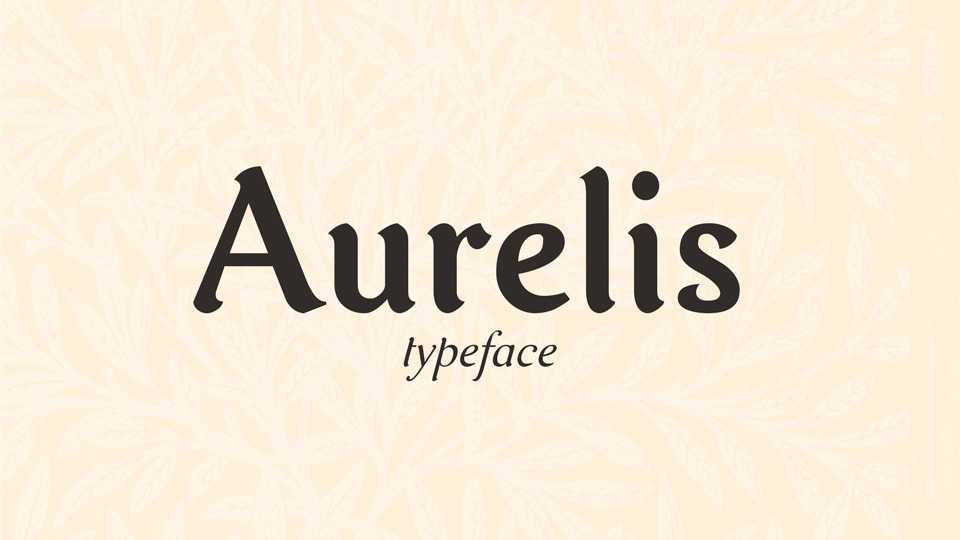
Aurelis Font Family › Fontesk
Download Aurelis typeface, a beautiful sans serif font family in two weights with matched Italics and Script styles. Aurelis keeps a very good readability, especially with small sizes of characters.
Designer: Arkandis Digital Foundry